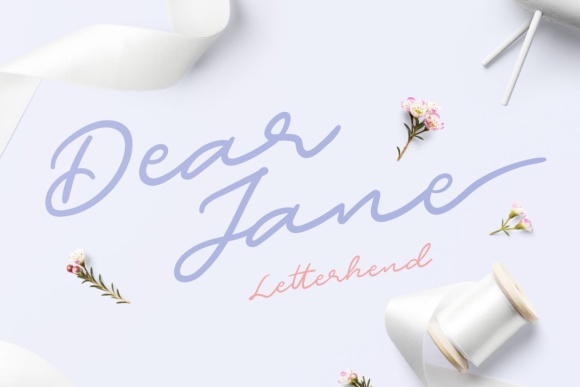
Dear Jane Script Font: A Romantic and Natural Typeface
In the world of typography, few fonts capture the essence of romance and natural elegance as beautifully as the Dear Jane Script Font. This lovely typeface was made from actual handwriting, giving it a unique, organic feel that sets it apart from more traditional fonts. The Dear Jane Script Font is perfect for those looking to add a touch of personal warmth and charm to their projects, whether it be for signatures, wedding invitations, greeting cards, logos, or much more.
Characteristics of Dear Jane Script Font
The Dear Jane Script Font boasts several characteristics that make it a standout choice for creative projects. Its primary features include:
- Natural and Romantic Feel: Since it’s derived from actual handwriting, the font exudes a natural, effortless charm that is hard to replicate with digital fonts.
- Elegant and Fluid Lines: The font features elegant, fluid lines that give it a sophisticated yet approachable feel.
- Versatility: It’s incredibly versatile, suitable for a wide range of applications from formal to informal.
- Emotional Connection: The hand-written origin of the font helps create an emotional connection with the reader, making it perfect for projects where a personal touch is desired.
Creative Ways to Use Dear Jane Script Font
The Dear Jane Script Font is incredibly versatile, making it suitable for various creative projects. Here are some ideas on how to use this beautiful typeface:
- Wedding Invitations: Add a touch of romance and elegance to your wedding invitations. The font’s natural and romantic feel makes it perfect for wedding-related stationery.
- Greeting Cards: Whether it’s a birthday, anniversary, or just a simple hello, the Dear Jane Script Font can help you create greeting cards that feel personal and heartfelt.
- Signatures: Elevate your digital or handwritten signatures with a touch of elegance and personality.
- Logos: For businesses that want to convey a sense of warmth, elegance, and approachability, the Dear Jane Script Font can be a great choice for logo design.
- Social Media Graphics: Add a personal touch to your social media posts and stories with custom graphics that use the Dear Jane Script Font.
- Packaging: For products that tell a story or represent a brand with a personal touch, this font can be used on packaging to convey warmth and authenticity.
Tips for Using Dear Jane Script Font Effectively
To make the most out of the Dear Jane Script Font, consider the following tips:
- Pair with Complementary Fonts: When using the Dear Jane Script Font alongside other fonts, choose fonts that complement its elegance and flow. Simple sans-serifs or classic serifs often work well.
- Adjust Letter Spacing: For better readability, especially in longer texts, consider adjusting the letter spacing. This can help maintain a natural look while ensuring the text is easy to read.
- Use it Sparingly: While the font is beautiful, it’s best used sparingly for headings, titles, or key messages to maintain impact and avoid overwhelming the reader.
- Consider Size and Color: The size and color of the text can significantly affect the overall look. Use contrasting colors for text and background, and consider larger sizes for headings to create visual hierarchy.
Dear Jane Script Font in Digital vs. Print Media
The Dear Jane Script Font can be effectively used in both digital and print media, each with its considerations:
- Digital Media: For websites, social media, and digital marketing materials, ensure that the font is web-friendly and consider its appearance on different devices and screen sizes.
- Print Media: For print materials like brochures, business cards, and posters, consider the paper quality and printing method, as these can affect the final appearance of the font.
The Dear Jane Script Font offers a unique blend of natural elegance and romantic charm, making it a valuable addition to any creative project. Its versatility, emotional resonance, and aesthetic appeal make it an excellent choice for a wide range of applications. By understanding its characteristics and using it thoughtfully, designers and creators can add a personal touch to their work, making it more engaging and memorable.
Embracing the Personal Touch with Dear Jane Script Font
In a digital age where automation and uniformity can dominate, the Dear Jane Script Font stands out by offering a refreshing personal touch. It’s a reminder that, even in professional and formal contexts, there’s room for warmth, personality, and human connection. Whether you’re a designer looking for a unique font for a client’s project or a DIY enthusiast wanting to add a personal touch to your creations, the Dear Jane Script Font is a beautiful choice that can help you achieve your goals.